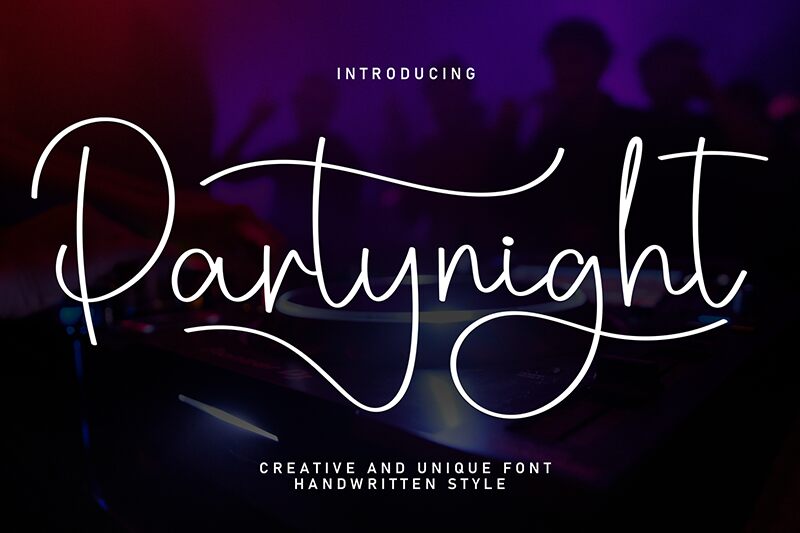
Partynight font by Scratchones is a free handwritten script font made up from individual writing strokes. Each letter connects in an elegant flowing manner resulting in an expressive typeface suitable for contemporary usage in a variety of graphic design and branding tasks. Individual strokes are evenly balanced to form a pleasing visual experience when presented in a word or sentence format.
Use your creativity and imagination to implement this font in modern applications in event branding and invitations. Its personal and friendly feel also makes it perfect for logotypes, posters, stationery, labels, signatures, and product packaging.